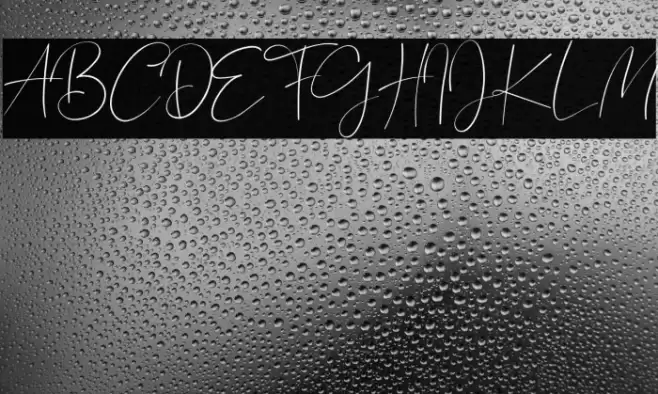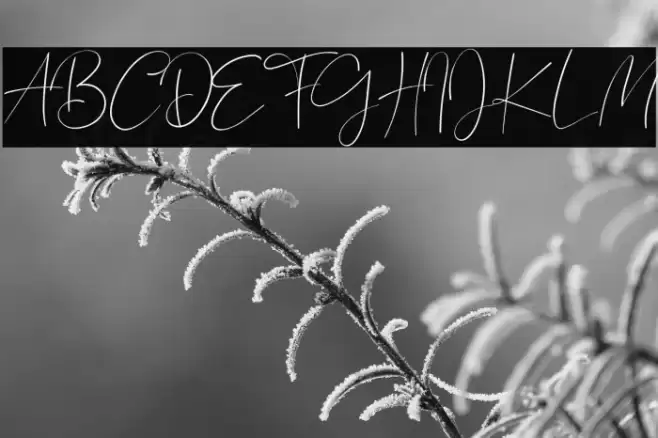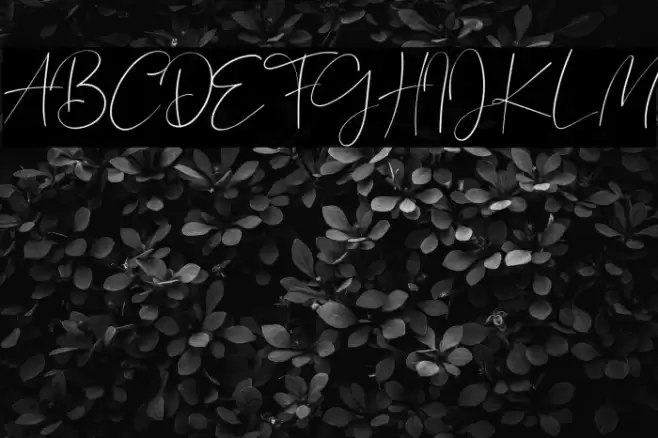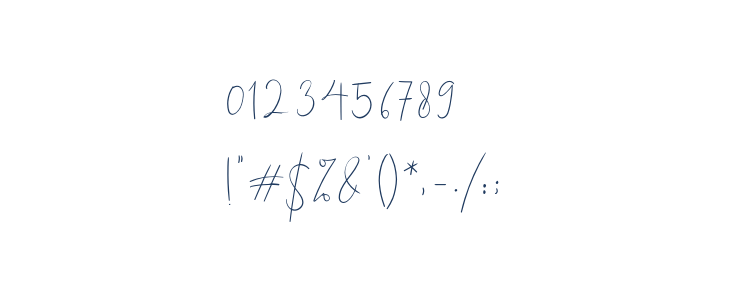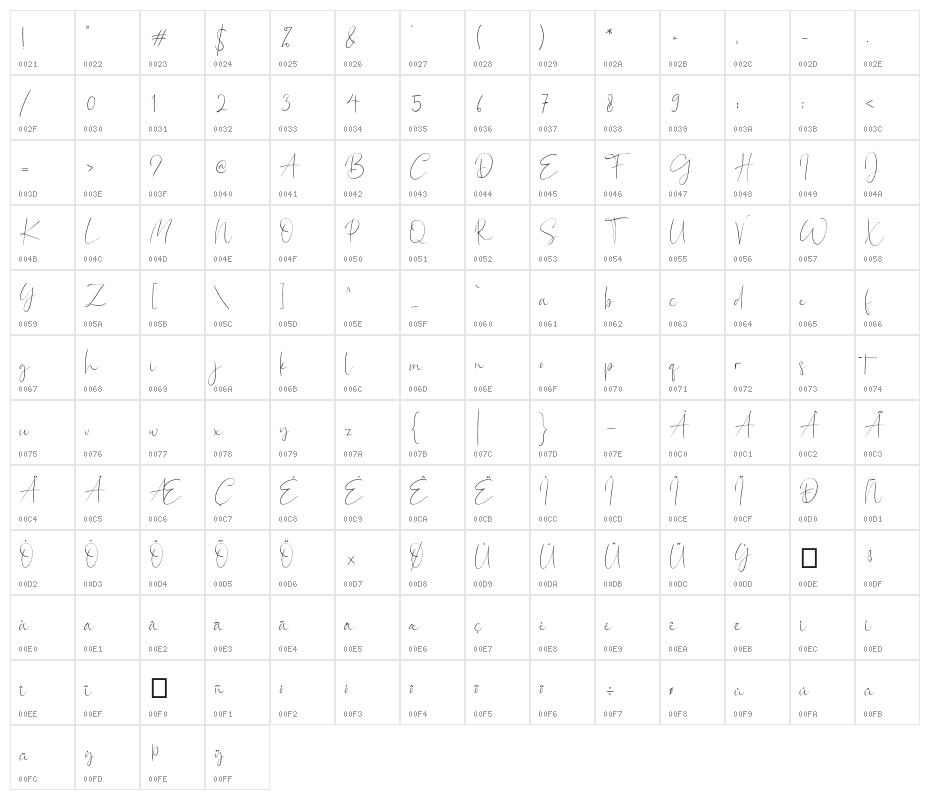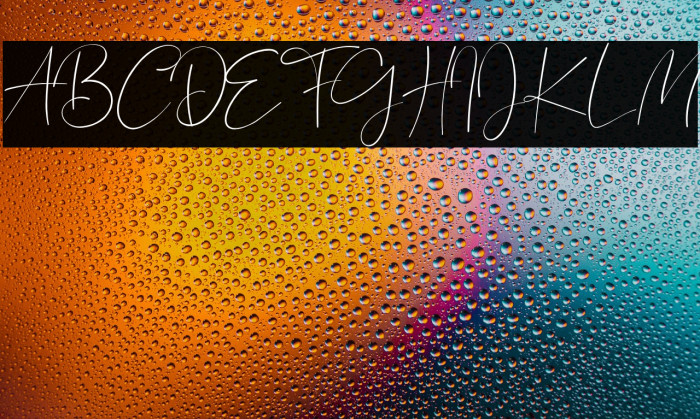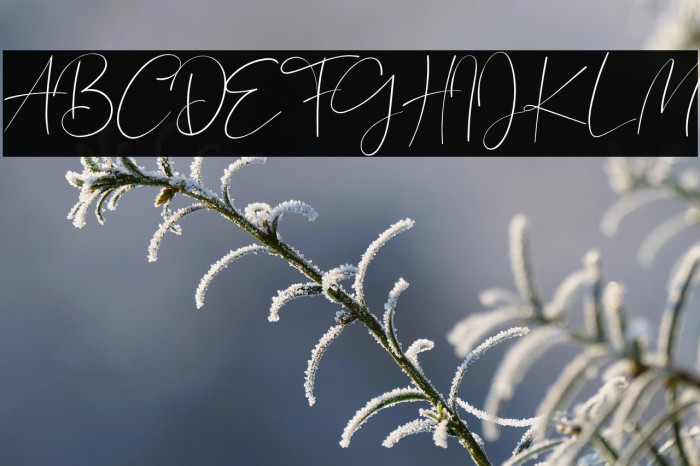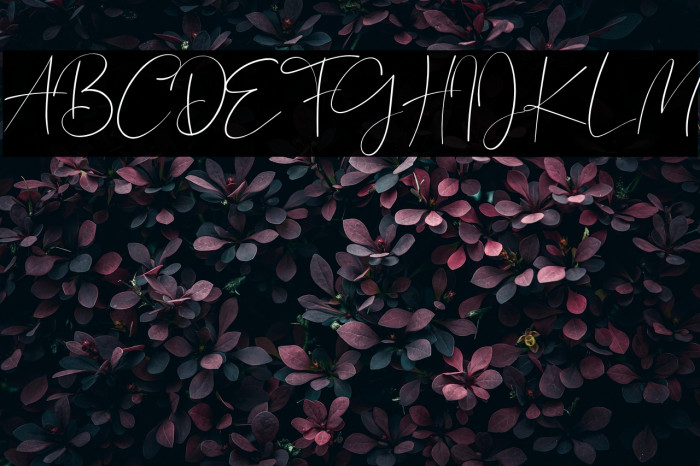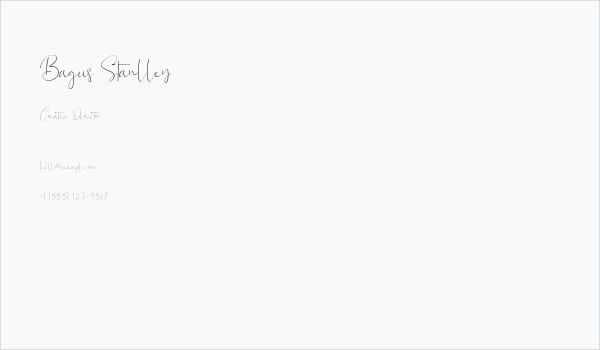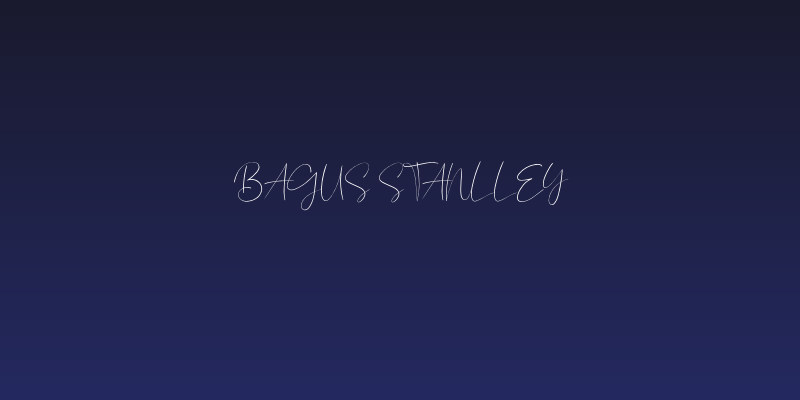
Bagus Stanlley Font
Bagus Stanlley Description
This font features a delicate and flowing script style, characterized by its elegant and cursive letterforms. The uppercase letters are tall and slender, with graceful loops and swirls that give a sense of fluidity and movement. The lowercase letters maintain a consistent flow, with some letters extending below the baseline, adding to the font's dynamic appearance. The numerals are similarly styled, with a slight tilt and elongated forms that match the overall aesthetic. Special characters are thoughtfully integrated, maintaining the font's cohesive look. This font is perfect for projects that require a touch of sophistication and elegance, such as wedding invitations, branding, and high-end product packaging.
A delicate and flowing script font with elegant cursive letterforms from Uncategorized fonts.
- Proposed Projects: Ideal for wedding invitations, branding, and luxury product packaging.
- Overall Style: Elegant
- Use Case: Logos, Invitations, Branding